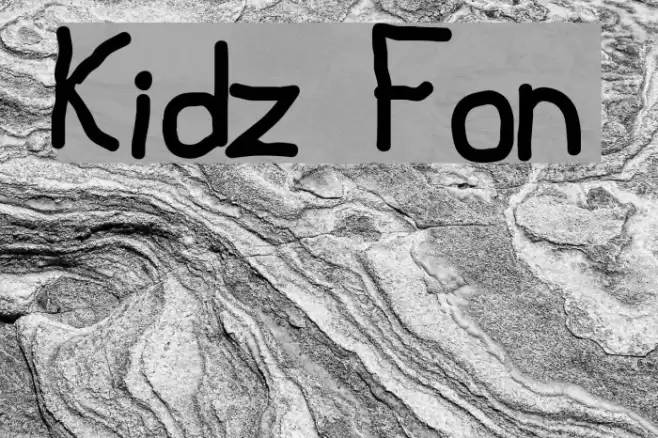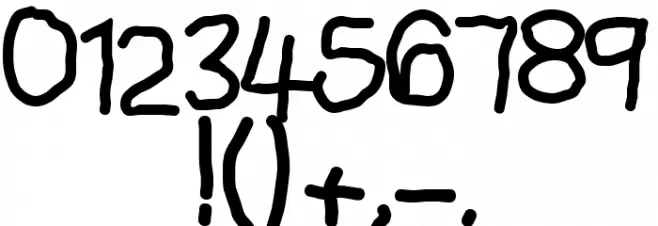
Kidz Font
This playful and whimsical font features a hand-drawn style that exudes a sense of fun and creativity. The characters are irregular and slightly uneven, giving it a childlike charm. The strokes are bold and rounded, with a casual and informal appearance. This font is perfect for projects that aim to capture a youthful and energetic vibe. The letters are distinct and easy to read, making it suitable for headlines and short text. The numbers and special characters maintain the same playful aesthetic, ensuring consistency throughout any design.
A playful, hand-drawn font with a whimsical and childlike charm from Uncategorized fonts.
- Proposed Projects: Ideal for children's books, educational materials, playful branding, and creative posters.
- Overall Style: Playful